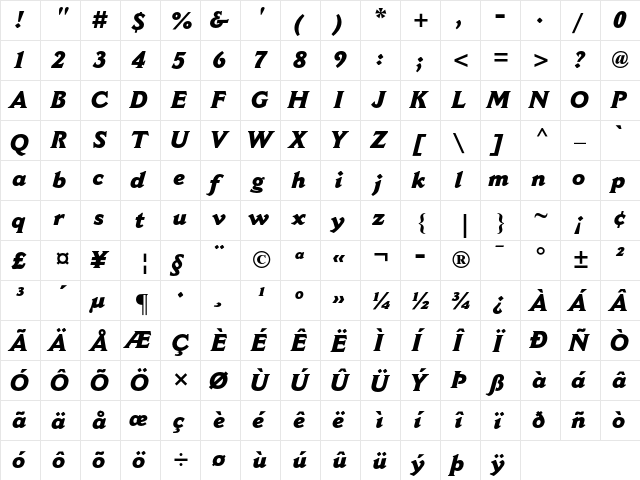
Cantoria MT Extra Bold Italic
Design Context for Cantoria MT Typeface
Cantoria MT is a composed and adaptable typeface that performs quietly and consistently across a wide range of design contexts. Its italic angle brings a sense of urgency and motion to the letterforms. Its bold stroke weight gives it real presence on the page.
Pro Tip: Use Cantoria MT for emphasis, pull quotes, and subheadings where its slanted energy can add rhythm to the layout.